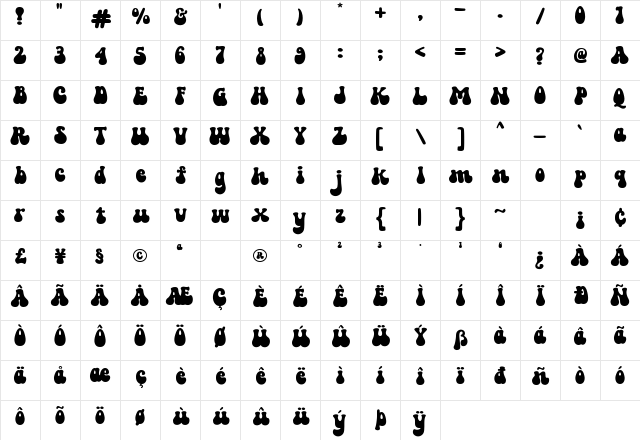
Retro Groovy Regular
Complete Retro Groovy Regular glyph index. Displaying only characters natively supported by Retro Groovy Regular font.
Design Context for Retro Groovy
Retro Groovy wears its vintage influences proudly, with letterforms that recall mid-century signage, classic packaging, and nostalgia-driven design.
Font Pairing: Combine Retro Groovy with a simple slab or neutral sans - period-accurate companions reinforce the vintage feel without competing for attention.
Pro Tip: Lean into Retro Groovy's period character by pairing it with aged paper textures, muted colour palettes, and vintage illustration styles.